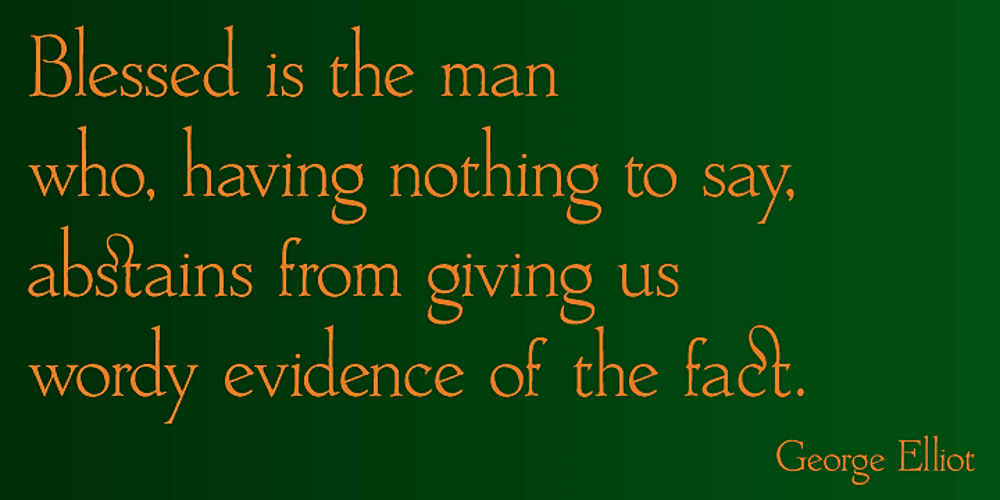
Aramus Font Family was designed by David Bergsland and published by Hackberry Font Foundry. Aramus contains 1 styles and family package options. Aramus is a new serif font in my continuing objective of designing book fonts that I can really use. In many ways, Aramus is a very different direction for me. It comes from a scan of an old display face that has been radically modified to a much smaller x-height than I have been using lately, plus taller ascenders. Many of the characters needed a lot of correction to bring them into my taste. In general, I have decided that many of my fonts create a type color that is too dense. Aramus is an attempt to get away from that look. Although Amitale has been a very successful book family and excellent to work with, I find I still need something more open with a lighter color. Aramus is the first look at the new direction. The original hand-cut serifs vary a lot, different for almost every character. This gives a little looseness and helps the lightness I am looking for. It will be interesting to see where this all goes. This is a normal serif for me in that it has caps, lowercase, small caps with the appropriate figures for each case. This font has all the OpenType features in the set for 2009. I didn’t bother with the CE accents (though I can add them upon request. They will be in the final new book family). There are several ligatures for your fun and enjoyment: bb gg ff fi fl ffi ffl ffy fj ft tt ty Wh Th and more. Like all of my fonts, there are: caps, lowercase, small caps, proportional lining figures, proportional oldstyle figures, & small cap figures, plus numerators, denominators, superiors, inferiors, and a complete set of ordinals 1st through infinity. Enjoy!